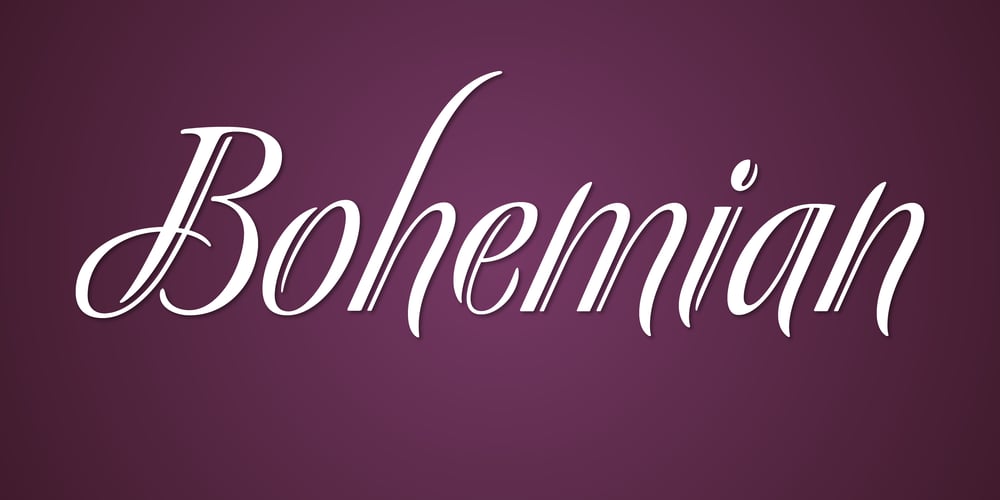
Bellas Artes Font Family was designed by Alejandro Paul, Angel Koziupa and published by Sudtipos. Bellas Artes contains 1 styles and family package options. Bellas Artes is what happens when the brush of Angel Koziupa and the technical expertise of Alejandro Paul go face to face with the Art Deco aesthetic. The recognizable Koziupa curves become players of a game of halves, where there is no such thing as a better half, but both sides complete each other like in that perfect romance you will never forget. Bellas Artes is an excellent choice not only for packaging design, but also for book and music covers meant for the feminine demographic, collateral of classical taste, and of course pre-WWII visuals.